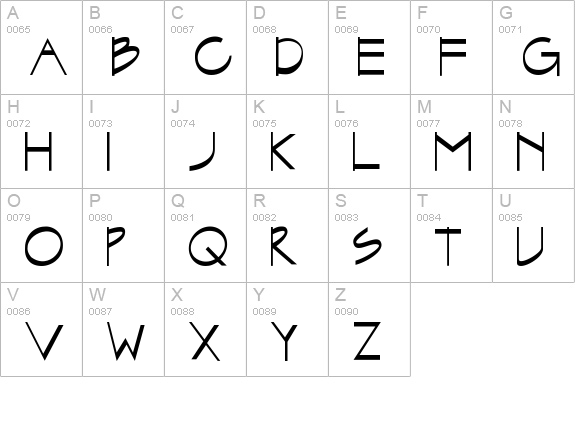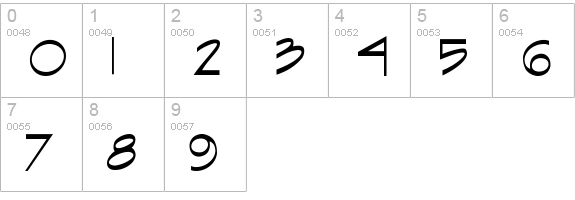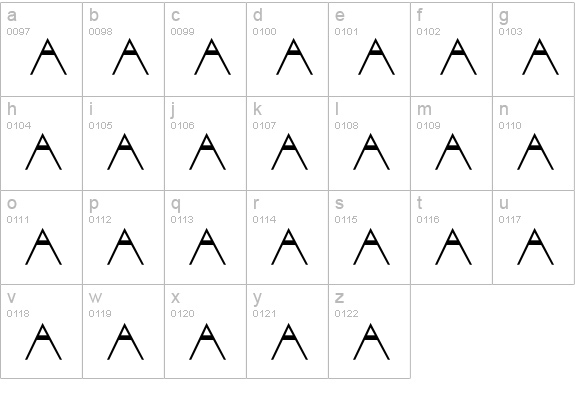
TK-ARCHITECT Font Details
Introducing TK-ARCHITECT, a modern and sleek font that embodies the essence of architectural design. With its clean lines and sharp edges, this typeface is perfect for creating stunning visual compositions that resonate with precision and elegance. TK-ARCHITECT is not only visually appealing but also highly versatile, making it suitable for a wide range of design projects. Whether you're working on a corporate logo, a magazine layout, or a website interface, this font will effortlessly elevate your designs to the next level. One of the standout features of TK-ARCHITECT is its ability to convey a sense of professionalism and sophistication. The carefully crafted letterforms exude a sense of authority and precision, making it an ideal choice for architects, engineers, and designers in related fields. But what truly sets TK-ARCHITECT apart is its availability for free download at FontsMarket.com. We believe that great typography should be accessible to all, and that's why we're excited to offer this exceptional font to the design community free of charge. By downloading TK-ARCHITECT from FontsMarket.com, you gain access to a high-quality typeface that will enhance your projects without breaking the bank. With its extensive character set and multiple weights, you'll have the flexibility to experiment and create designs that truly stand out. So, whether you're a seasoned design professional or a budding enthusiast, TK-ARCHITECT is a font that will undoubtedly elevate your work. Download it for free today at FontsMarket.com and unlock a world of possibilities for your design projects.